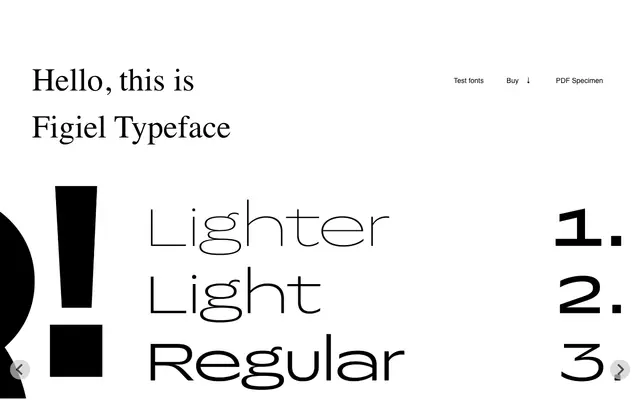
Figiel
Laïc · Maciej Połczyński · 2021
A playful Polish display sans with eight styles and aerodynamic proportions, designed by Maciej Połczyński for headline use.
Designed by Maciej Połczyński and released in 2021, Figiel is a display sans built for headline work with what the foundry describes as aerodynamic proportions and a funky character. Its name derives from the Polish word for a trick, and that irreverence carries into the design. With 400 glyphs covering extended Latin and full Polish character support, it includes a ligature set and a stylistic set for alternate letterforms.
Described by the foundry as a headline typeface with aerodynamic proportions and a funky character, placing it firmly in the display category despite its sans-serif construction.